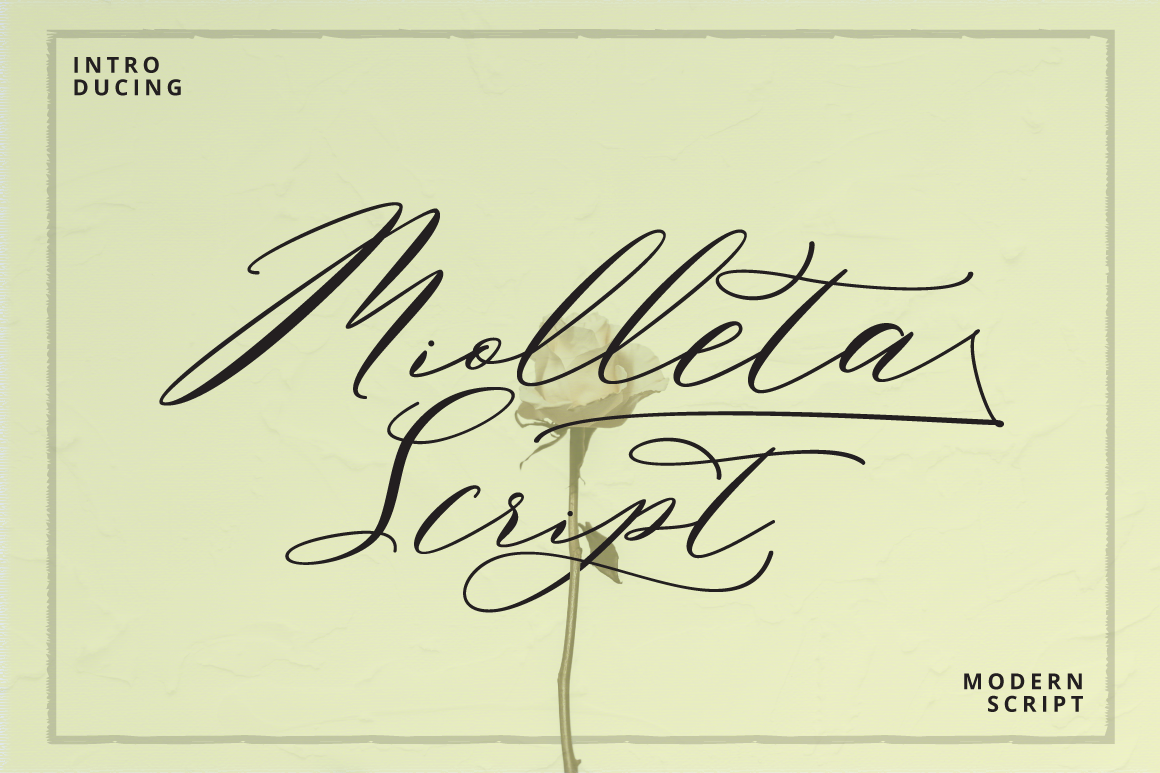
Miolleta Script
Introduce my new font Miolleta Script is a unique blend of classic and modern font. imperfect style ups and downs, like a dance letters, smooth, clean and simple. Perfect for wedding, event, invitation, escort card, table number, header menus, display, logos, slider blog, custom address, stamps, packaging, greeting card, etc.
Miolleta Script including alternate glyph and beautiful swirl in a font including stylistic sets, Ligatures etc. The Open Type features can be accessed by using Open Type savvy programs such as Adobe Illustrator CS, Adobe Indesign & CorelDraw X6-X7 and Microsoft Word. And this Font has given PUA unicode (specially coded fonts). so that all the alternate characters can easily be accessed in full by a craftsman or designer.
Basic Latin A-Z and a-z
Numbers
Symbols
Stylistic Set
Ligatures
Script 850+ Glyphs
PUA Encode
Multilingual Support